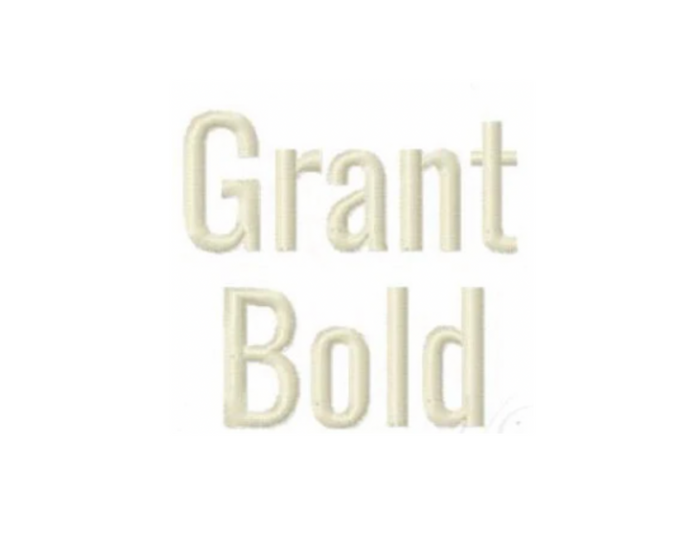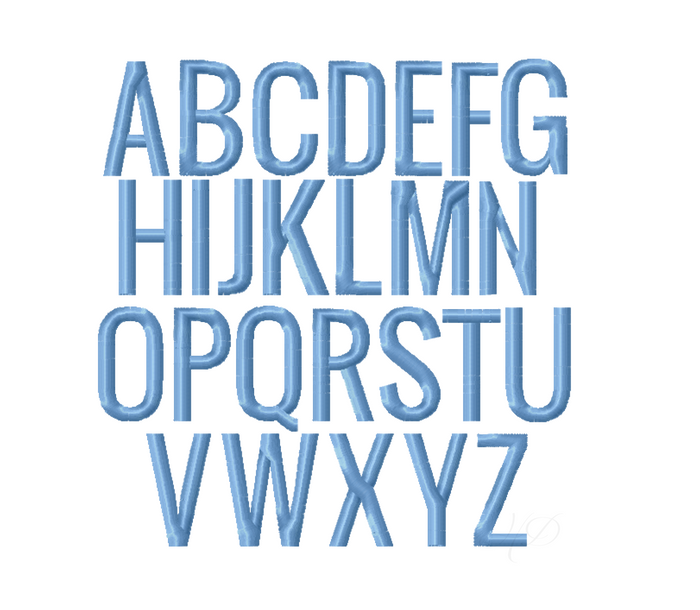
Bold Grant Satin Embroidery Font
Unlock your creative potential with the Bold Grant Satin Embroidery Font. This satin stitch sans serif font, inspired by the classic Franklin Gothic style, is available in six versatile sizes—1/2", .75", 1", 2", 3"—that fit perfectly within a 4x4 hoop or larger. Whether you're personalizing gifts or enhancing your DIY projects, this font is sure to impress.